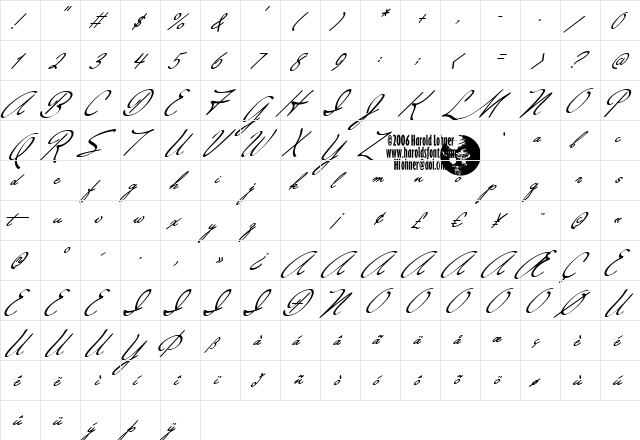
Directors ScriptBig Caps Regular Font Preview
Directors ScriptBig Caps Regular
Design Context for Directors ScriptBig Caps Typeface
Directors ScriptBig Caps flows with the natural rhythm of handwritten lettering, making it ideal for designs that call for warmth and personal expression.